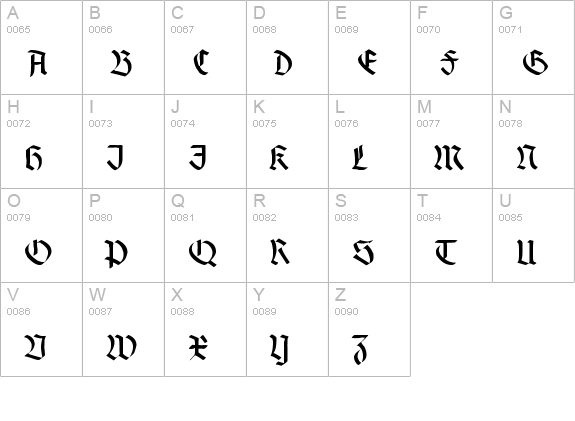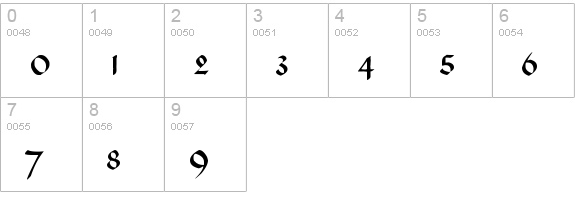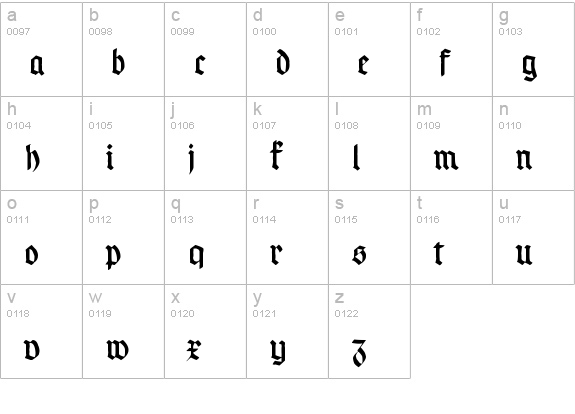
kochblack Font Details
Kochblack is a versatile and elegant font that exudes sophistication and modernity. With its sleek lines and bold appearance, this font is perfect for capturing attention and making a statement. Whether you're designing a logo, creating a poster, or crafting a headline, Kochblack will add a touch of class to your project. What makes Kochblack even more remarkable is that it is completely free. Yes, you read that right! This amazing font is freely available to download at FontsMarket.com. You no longer need to break the bank to access a high-quality font that will elevate your designs. Kochblack is here to offer you the best of both worlds - exceptional design and affordability. With its wide range of characters and glyphs, Kochblack allows you to unleash your creativity and explore endless possibilities. Its clean and sharp edges give it a contemporary feel, while its generous spacing ensures readability across various mediums. Whether used for print or digital projects, Kochblack delivers consistent and eye-catching results. The beauty of Kochblack lies in its ability to adapt to different design styles. From minimalist layouts to more intricate compositions, this font effortlessly blends in, adding a touch of sophistication without overpowering the overall aesthetic. Its versatility makes it an ideal choice for branding, advertising, editorial designs, and much more. Downloading Kochblack from FontsMarket.com is a breeze. Simply visit the website, locate the font, and click the download button. In just a few moments, you'll have this exceptional font ready to use in your next project. So why wait? Take advantage of this incredible opportunity to enhance your designs with Kochblack, a free font that combines beauty, versatility, and accessibility.